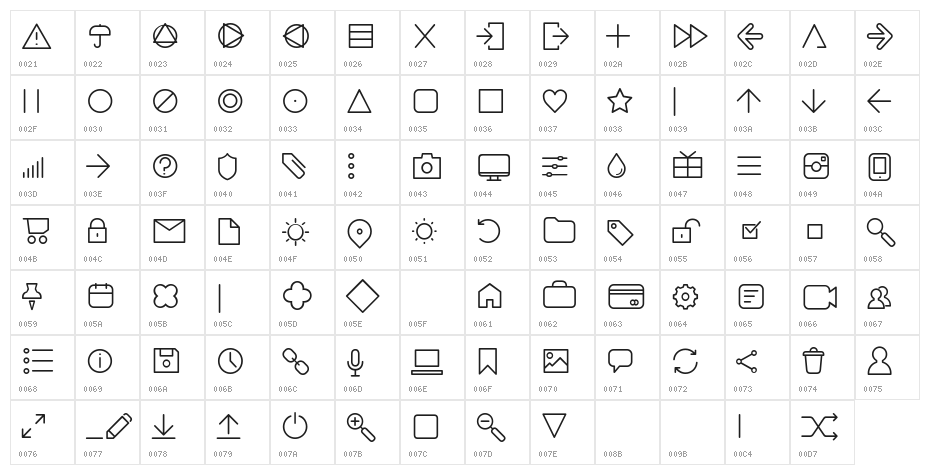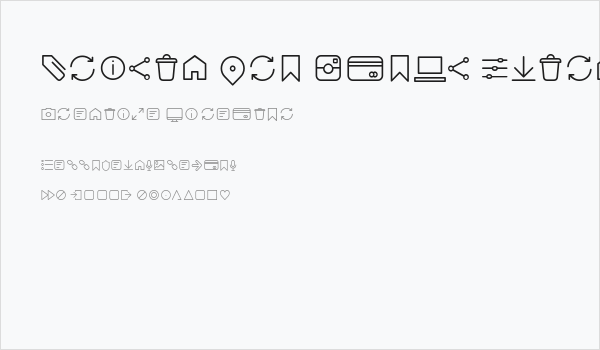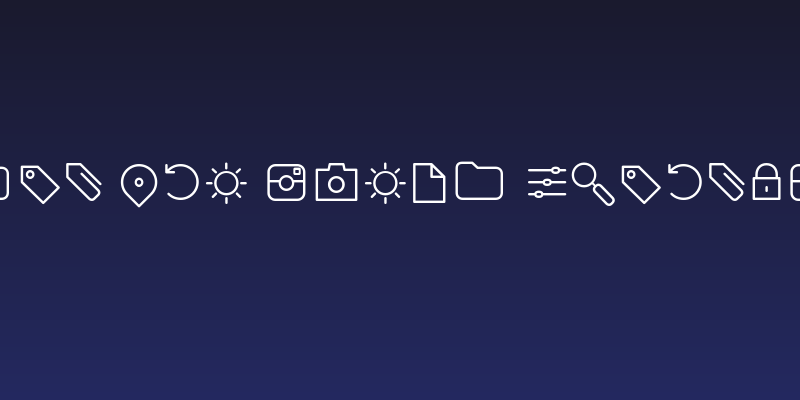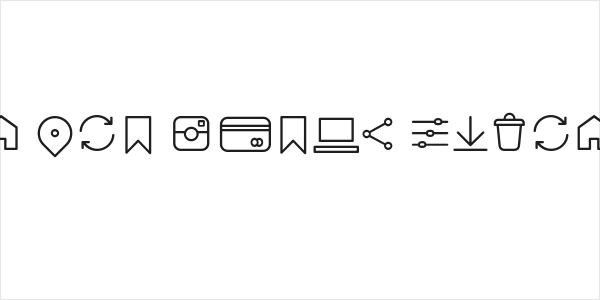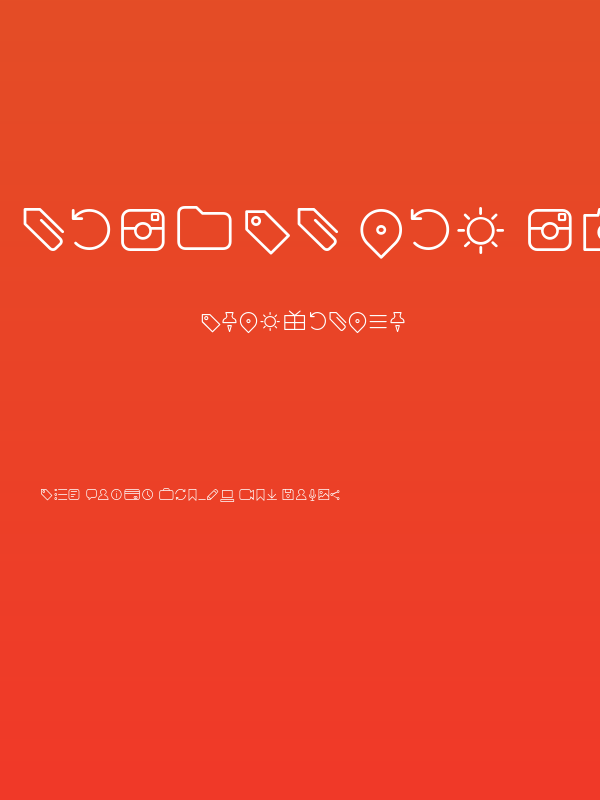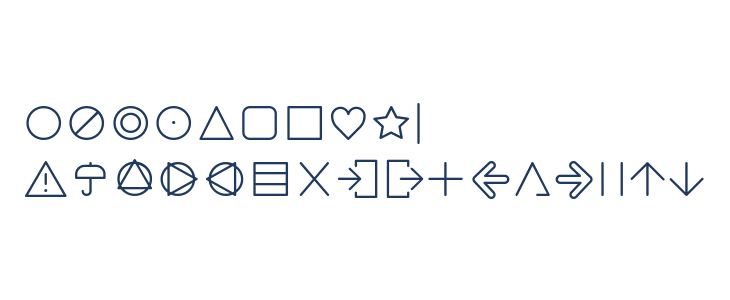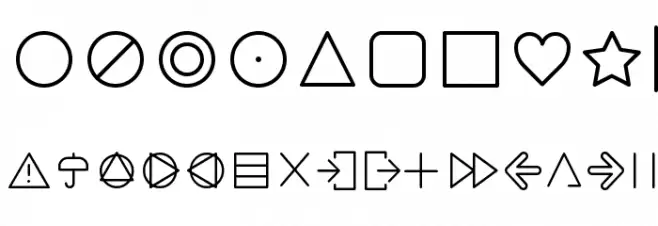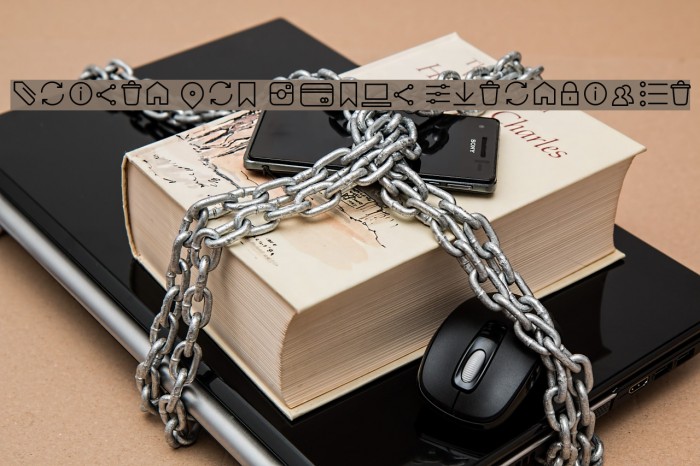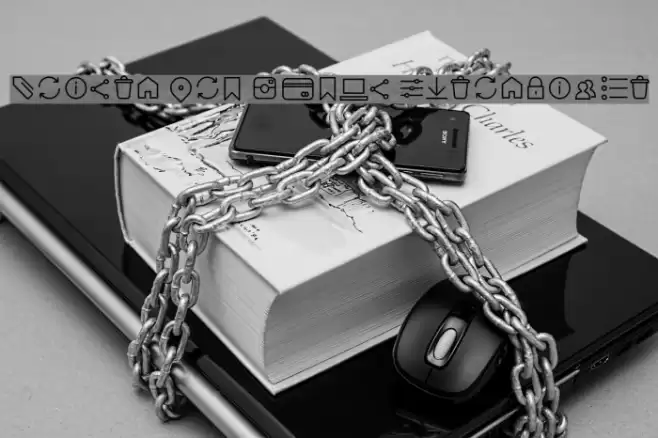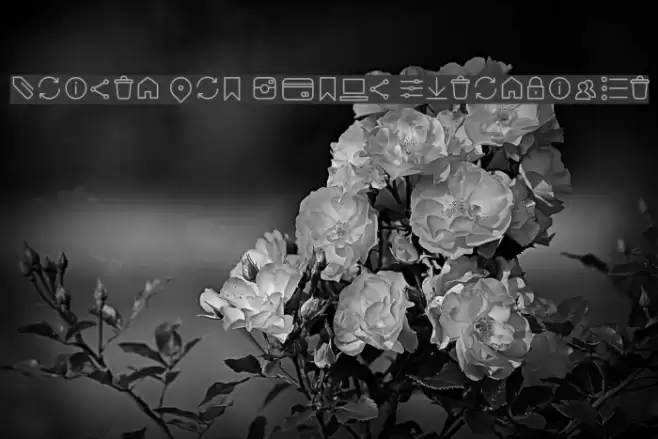
Arista Pro Icons ExtraLight Font
This is a collection of minimalist, line-based icons that exhibit a clean and modern aesthetic. Each icon is crafted with precision, featuring uniform line thickness and rounded corners, contributing to a cohesive and harmonious look. The icons cover a wide range of common interface elements such as settings, communication, media, and navigation, making them versatile for various applications. The design is simplistic yet effective, ensuring clarity and readability even at smaller sizes. The icons are monochromatic, allowing them to be easily integrated into different design schemes without clashing with other elements. Their lightweight appearance makes them suitable for modern digital interfaces, where a sleek and unobtrusive design is preferred.
| Use Case | Icons for digital interfaces, apps, and websites. |
| Proposed Projects | Ideal for use in web and app interfaces, presentations, and digital products requiring a modern and clean icon set. |